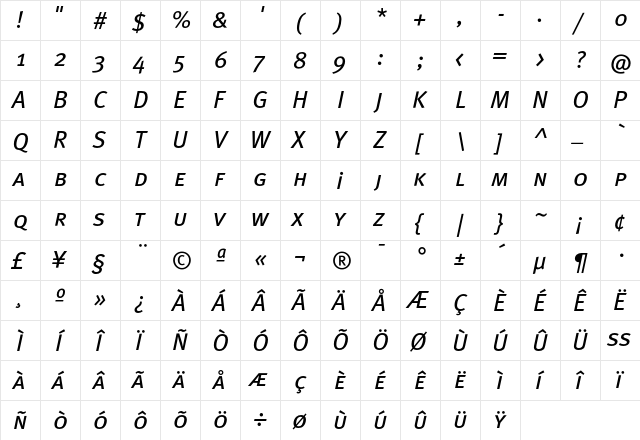
MetaBookTurk ItalicCaps
Design Context for MetaBookTurk Typeface
MetaBookTurk offers clean, dependable letterforms without strong stylistic allegiance, making it a practical choice for designers who need flexibility. The dynamic lean of this cut emphasises speed and emphasis in any layout.
Pro Tip: Use MetaBookTurk for emphasis, pull quotes, and subheadings where its slanted energy can add rhythm to the layout.